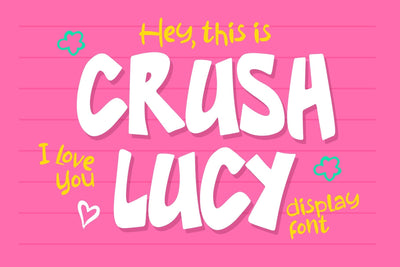
Crush Lucy - Playful Display Font
Add a dose of whimsy to your designs with Crush Lucy Playful Display Font. Watch your words come to life as each letter dances with a unique and charming personality. Perfectly crafted for projects that demand a touch of joy, Crush Lucy effortlessly infuses your designs with a lighthearted, friendly vibe. From branding to invitations, posters to merchandise, let your creativity run wild and free with this font that captures the essence of fun. Embrace the delightful spirit of Crush Lucy and turn your creations into a playful masterpiece that brings smiles to everyone who sees it.